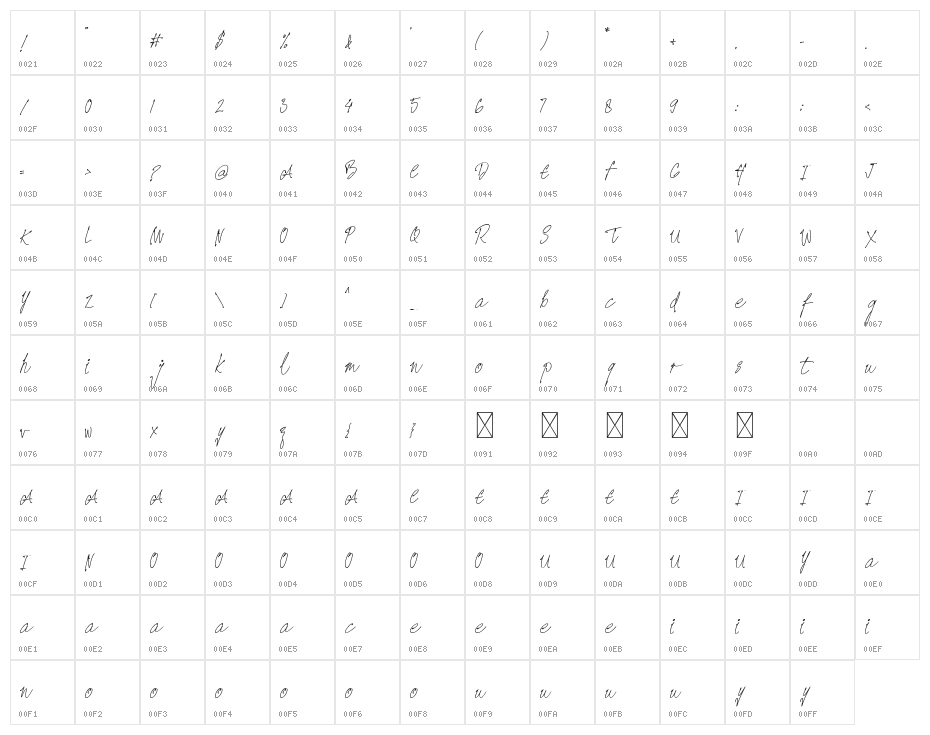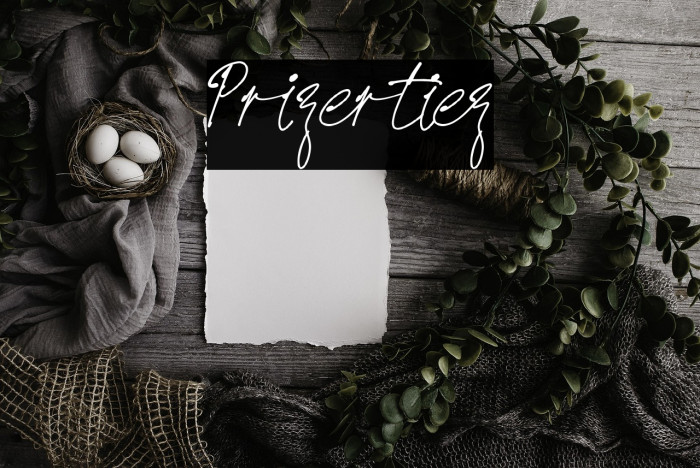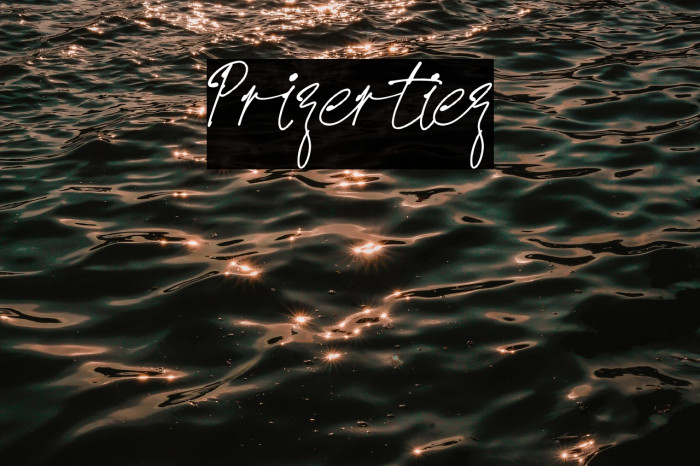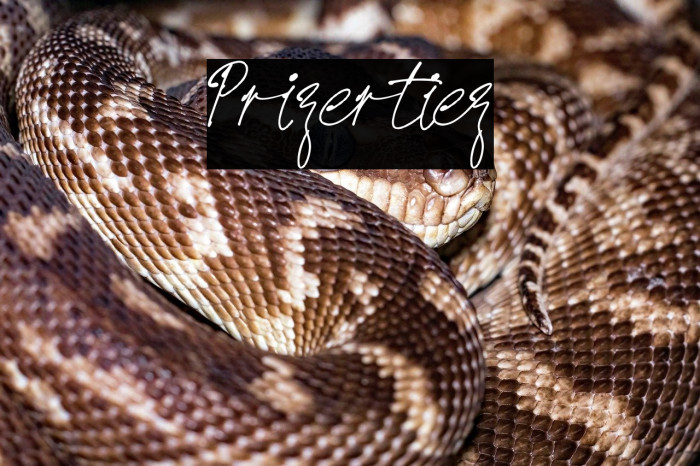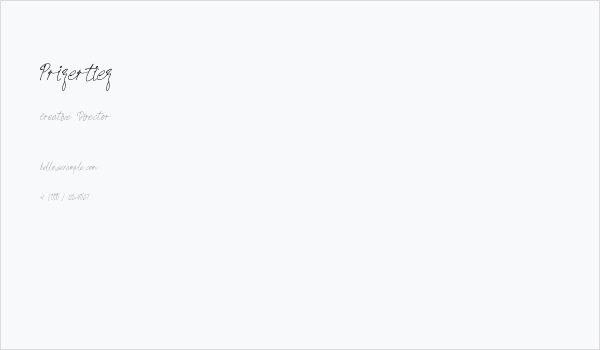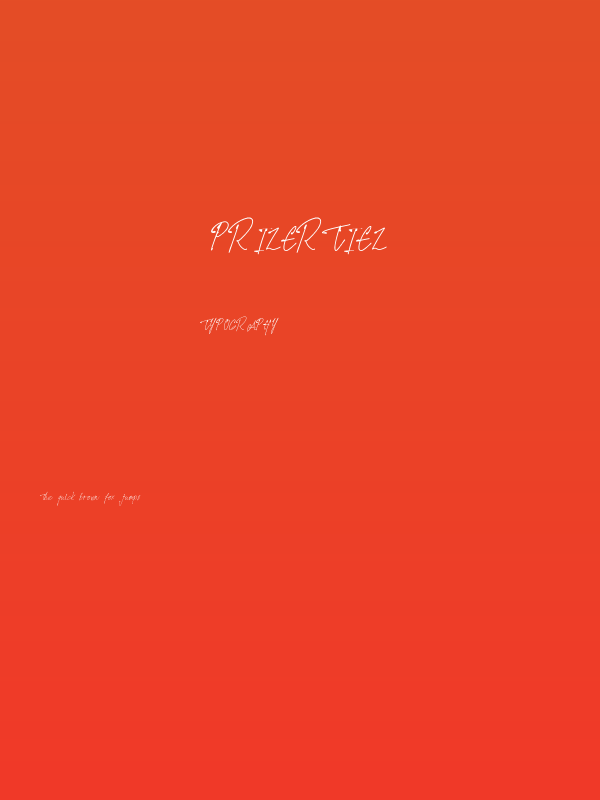
Prizertiez Font
Prizertiez Description
This font features a fluid, cursive style that mimics natural handwriting with a touch of elegance. The letters are connected, giving it a seamless flow, which is characteristic of script fonts. The uppercase letters are slightly more elaborate, with flourishes that add a decorative touch, while the lowercase letters maintain a consistent, smooth appearance. The numerals and special characters are designed to match the overall aesthetic, ensuring a cohesive look across all text. This font is ideal for projects that require a personal, handwritten feel, such as invitations, greeting cards, or branding materials.
| Use Case | Headlines, Invitations, Greeting Cards |
| Proposed Projects | Ideal for invitations, greeting cards, personal branding, and decorative projects. |